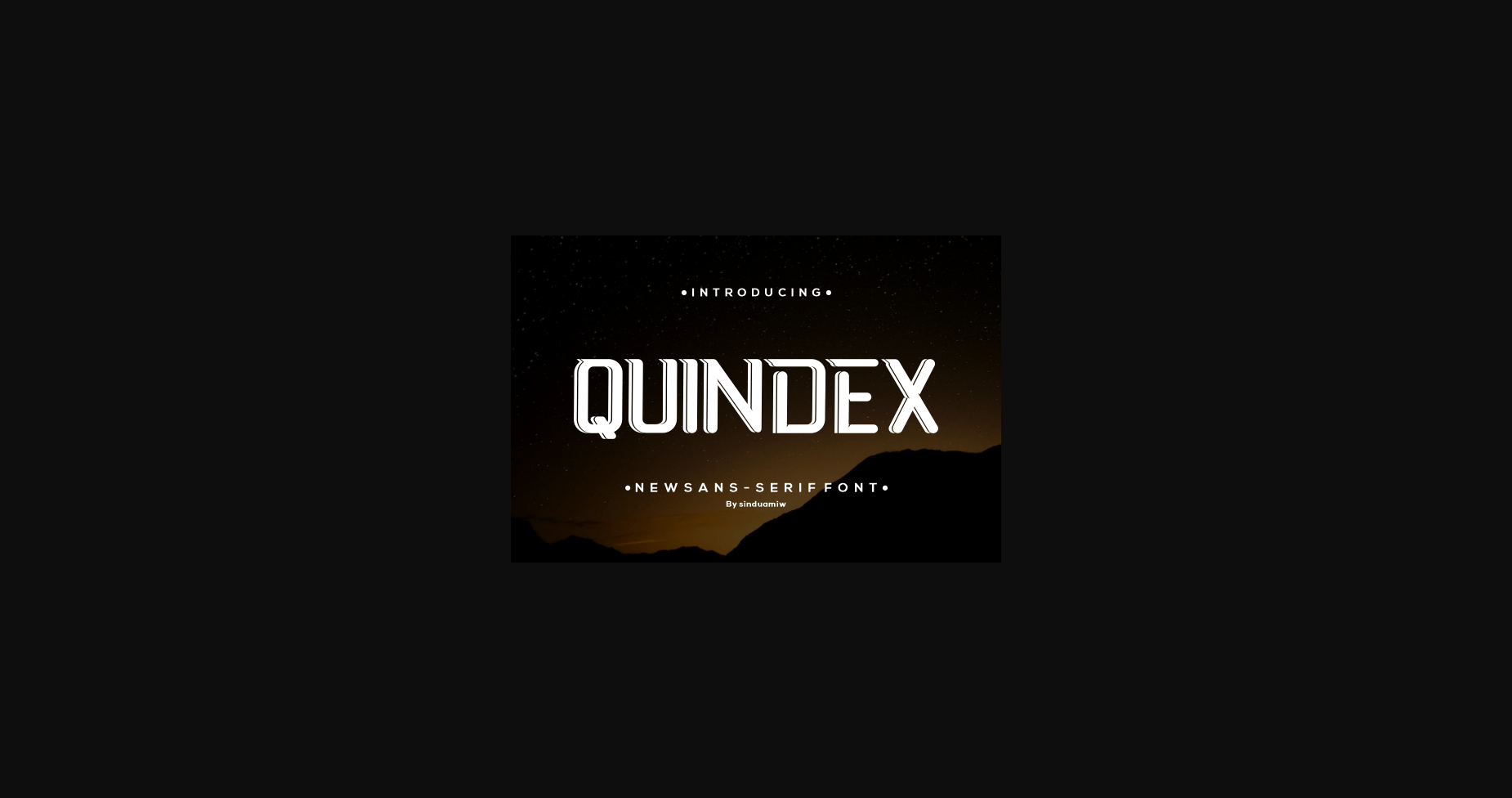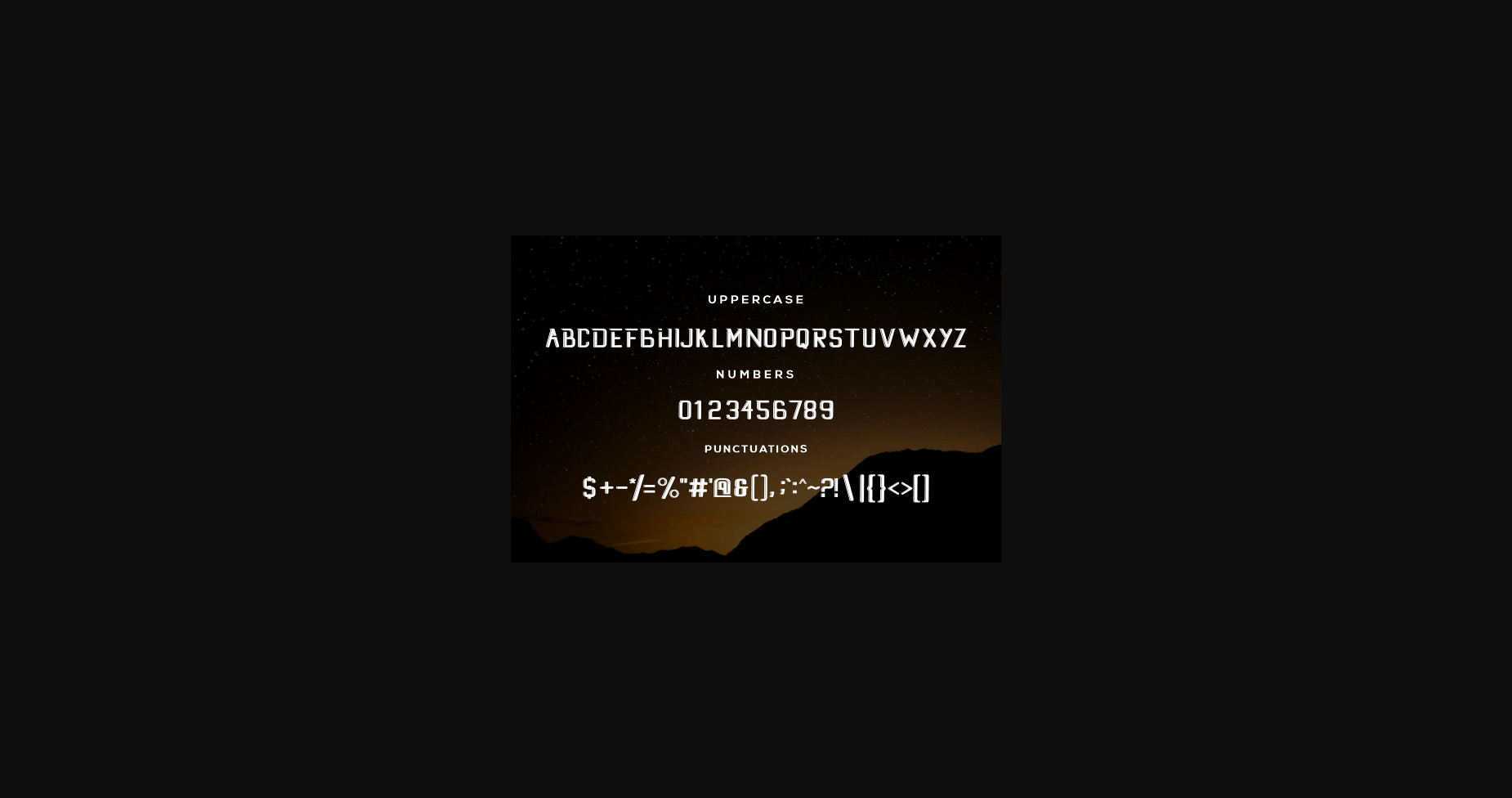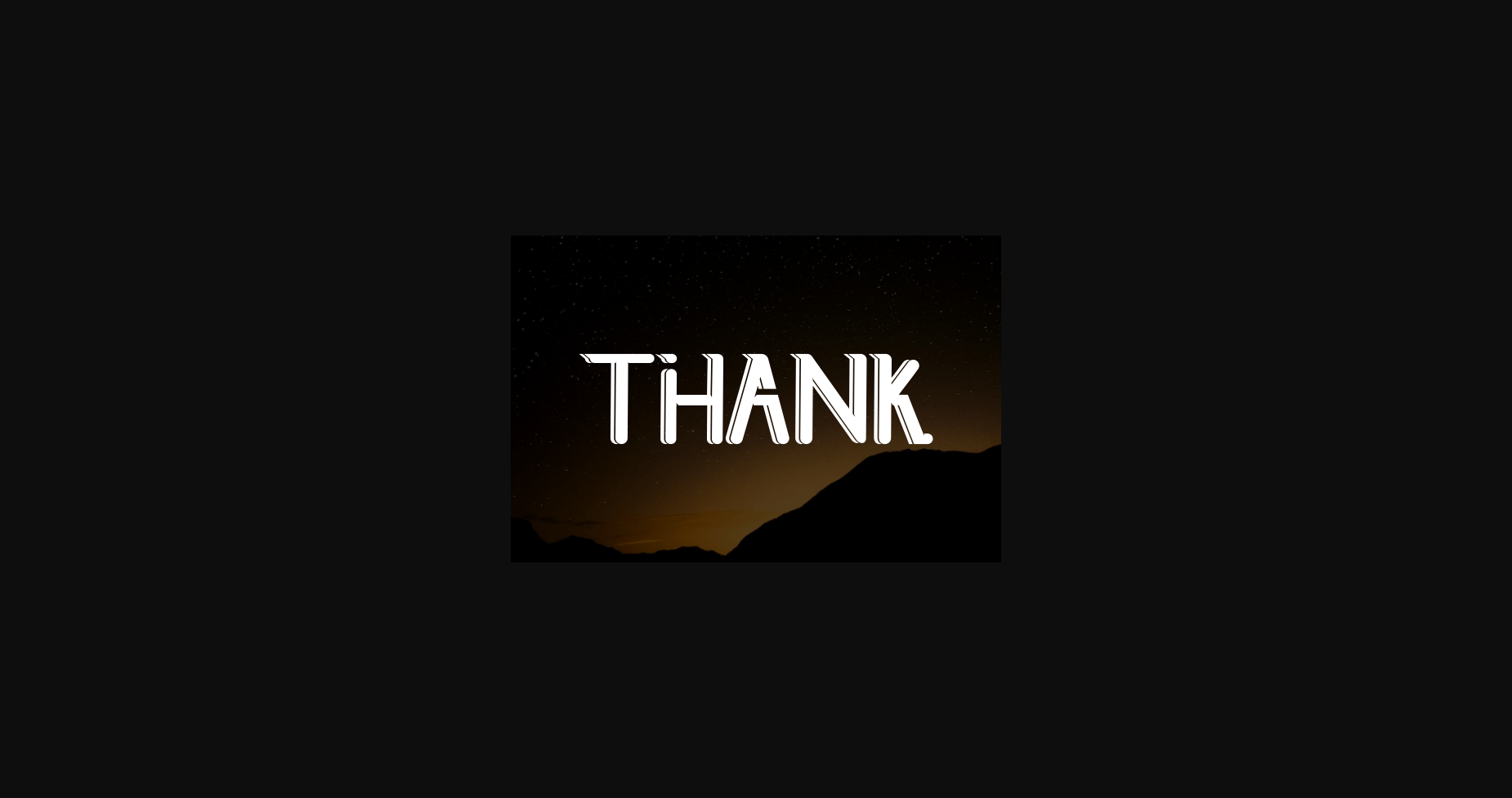
Quindex is a cool and modern sans serif font. Whatever the topic, this font will be a wonderful asset to your font library, as it has the potential to enhance any creation.